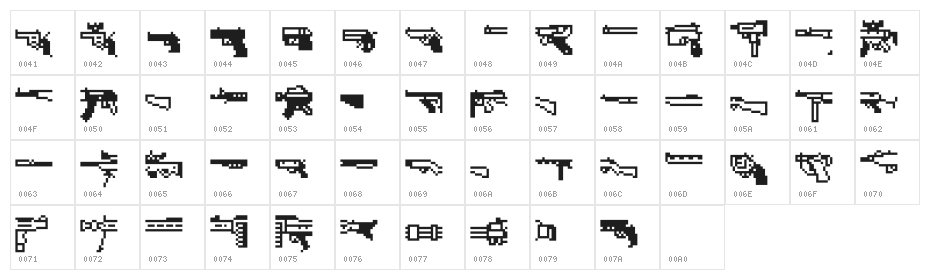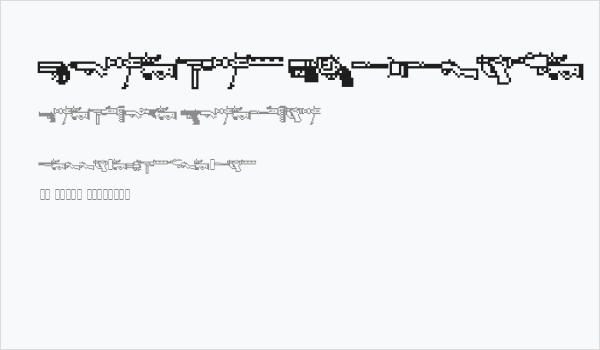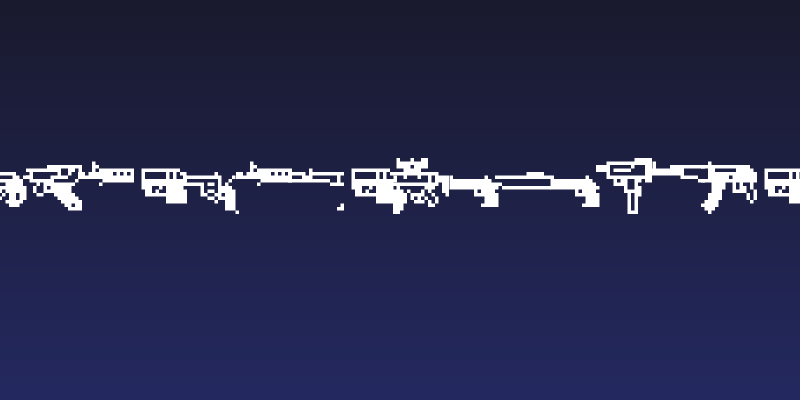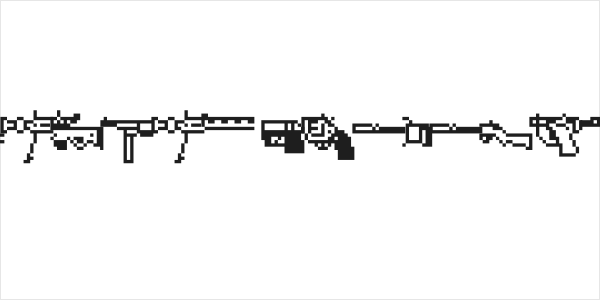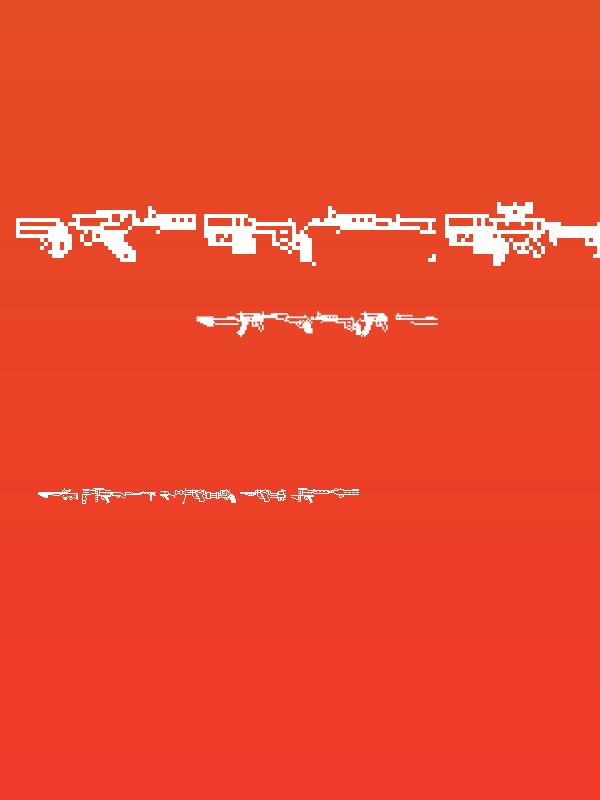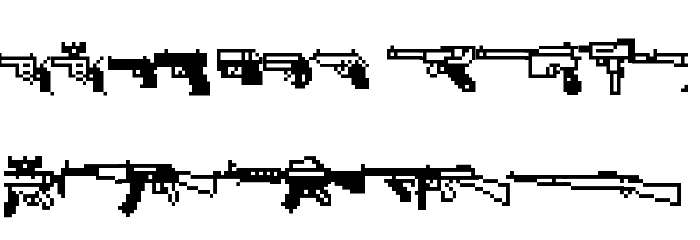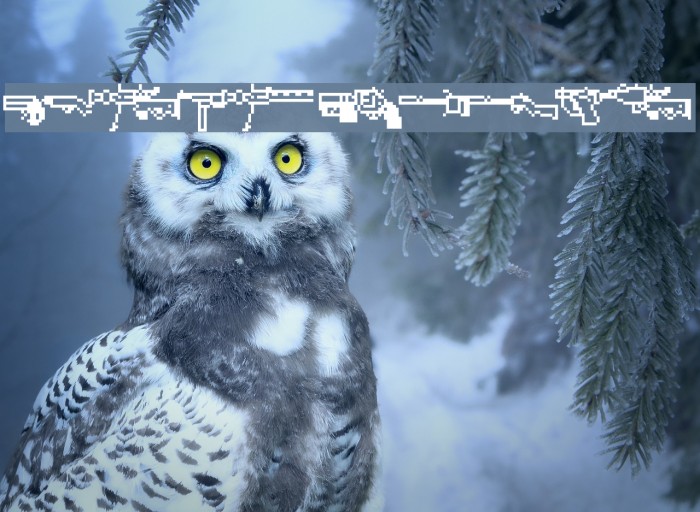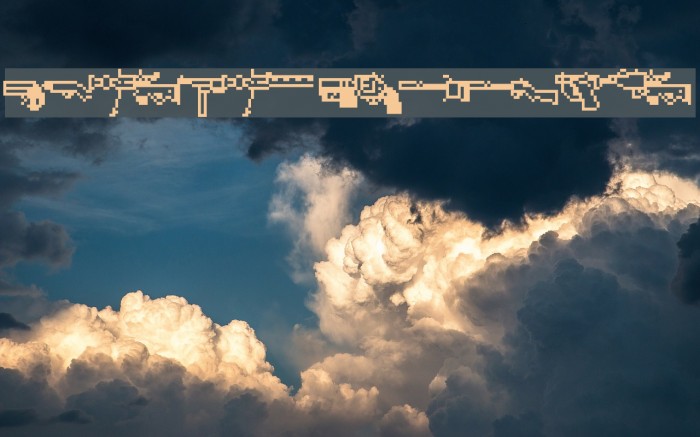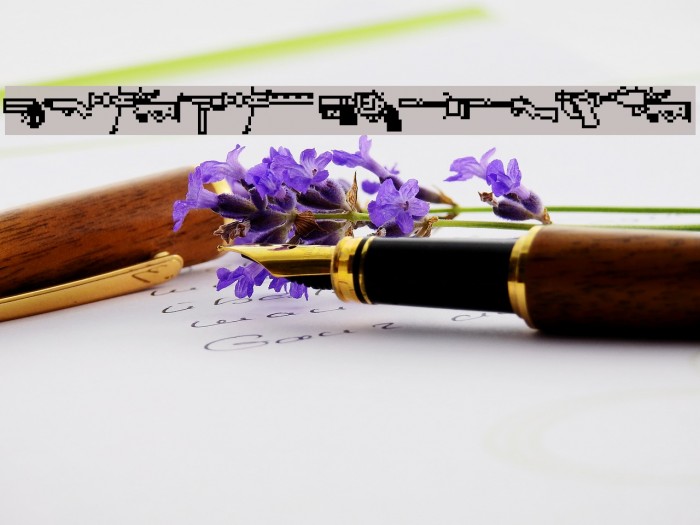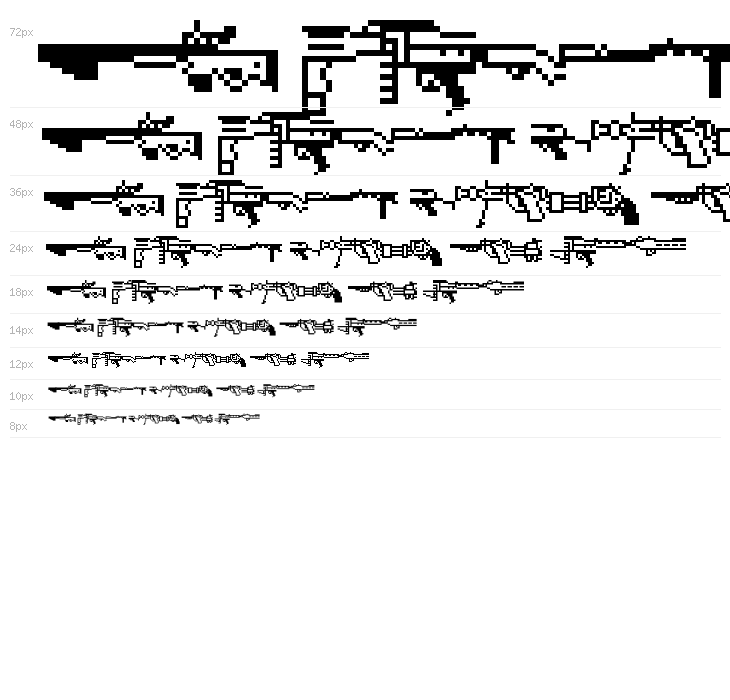
FirearmEncyclope Font
FirearmEncyclope Description
This image contains pixel art illustrations of various firearms, arranged in rows. The style is highly simplified and uses a monochrome, low-resolution aesthetic typical of early digital or video game graphics. Each firearm is depicted with minimal detail, focusing on recognizable silhouettes.
LingDong Huang
| Overall Style | Retro, Decorative, Pixel Art |
| Use Case | Game assets, Themed illustrations, Posters |
| Proposed Projects | Retro video games, educational infographics, digital collectibles, themed posters. |